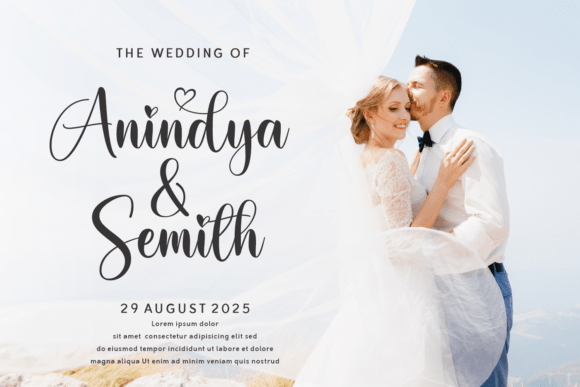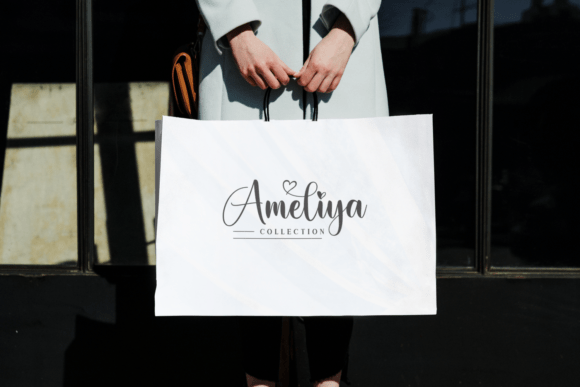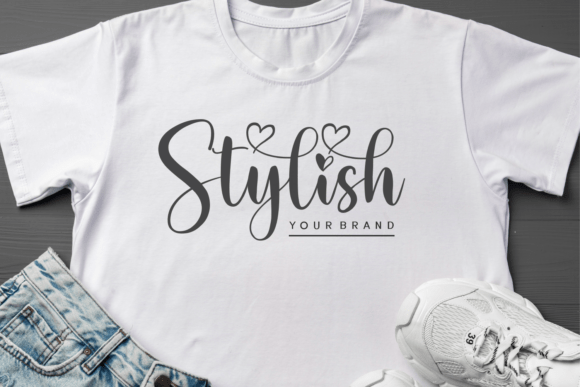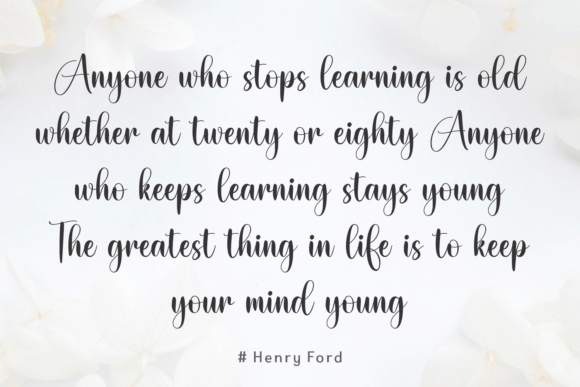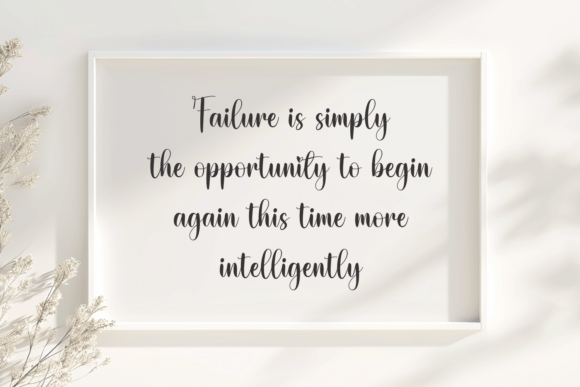
Introduction to Bening Font
Unveiling Bening Script Font – a delightful embodiment of design aesthetics, this typeface is meticulously crafted to augment the elegance and charm of your creative projects.
Harmonious curves and graceful shapes render the Bening Script with an irresistible allure, deftly infusing an exquisite aesthetic to your compositions Exhibiting a handcrafted swift strokes, this font exudes romantic charm, making it impeccably suitable for all things passionate and heartfelt.
Key Features of Bening Font